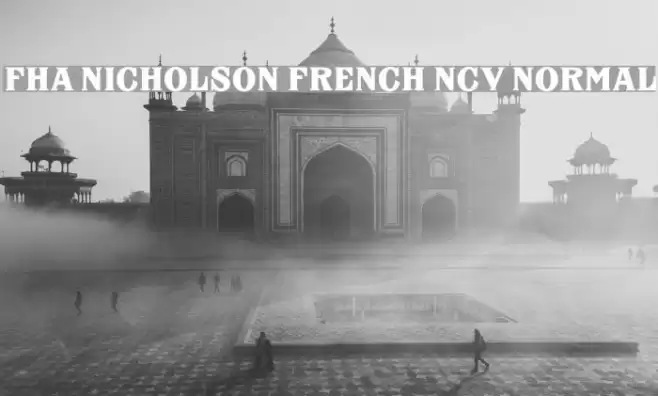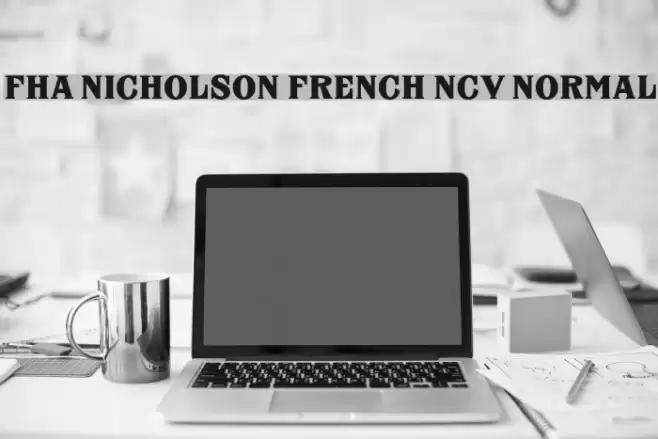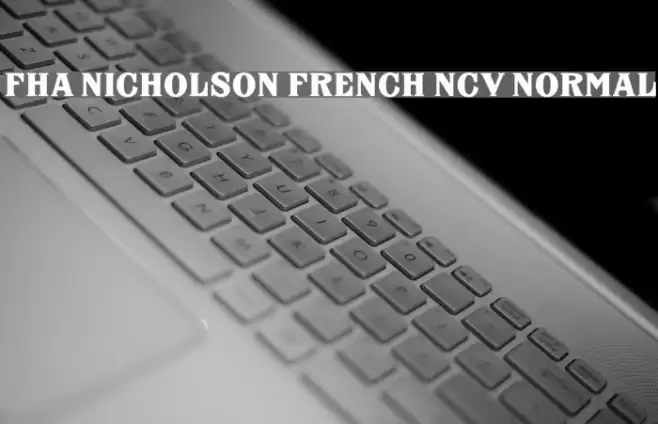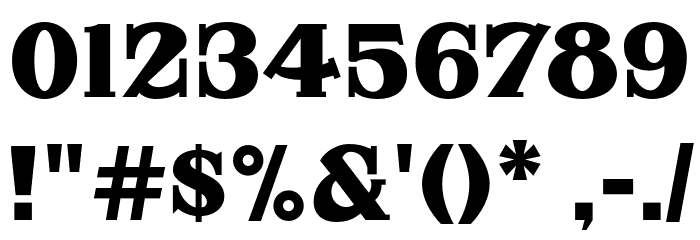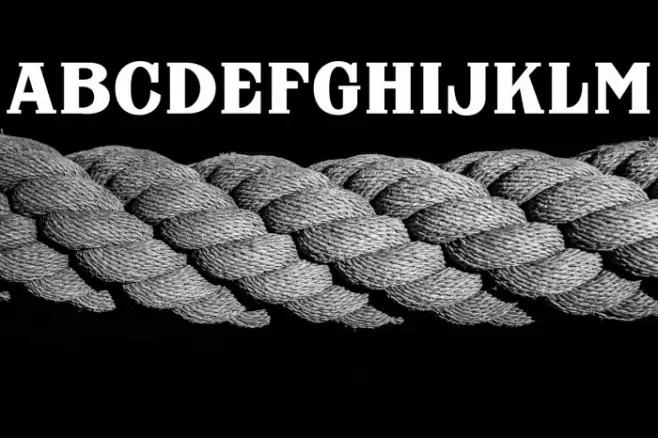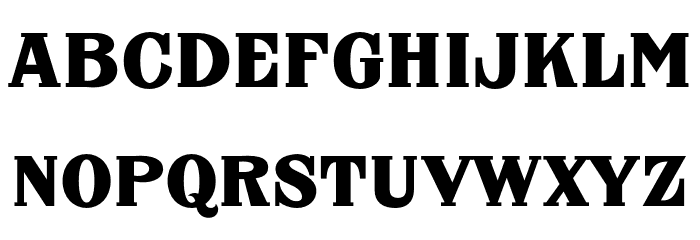
FHA Nicholson French NCV Normal Font
FHA Nicholson French NCV Normal Description
This font exhibits a bold and authoritative presence with its strong, thick strokes and pronounced serifs. The uppercase letters are robust and commanding, while the lowercase letters maintain a consistent weight, ensuring readability. The numerals are equally bold, making them stand out, and the special characters are crafted with the same attention to detail, ensuring they integrate seamlessly with the rest of the typeface. This font's design is reminiscent of traditional serif styles, yet it carries a modern twist, making it versatile for various applications.
A bold serif font with strong strokes and modern appeal from Art Nouveau fonts.
- Proposed Projects: Ideal for headlines, branding, editorial design, and signage where a strong, classic presence is desired.
- Overall Style: Classic
- Use Case: Headlines, Logos, Editorial Design